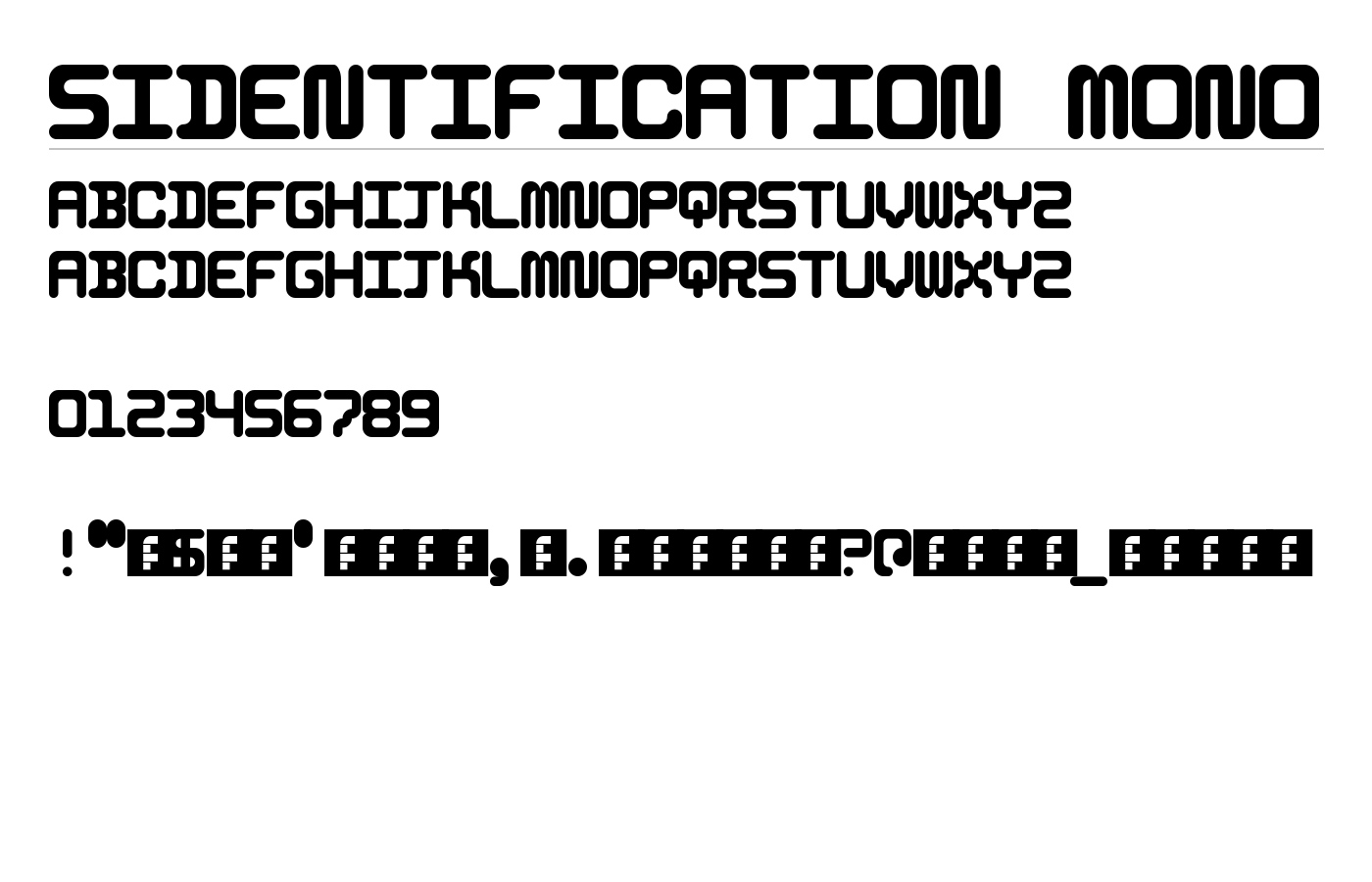
5Identification Mono is a modern, monospaced sans serif font featuring rounded corners and consistent stroke weight that give it a clean, friendly, and slightly futuristic look. Its unique geometric shapes and narrow width make it ideal for tech-related branding, coding environments, and digital displays, offering clear readability and a distinctive style. This font works well in headlines, logos, and user interfaces where a contemporary and approachable feel is desired.
5Identification Mono Font
About 5Identification Mono Font
| Font family | 5Identification Mono Font |
| Designer | Noah - 11 year old typomaniac |